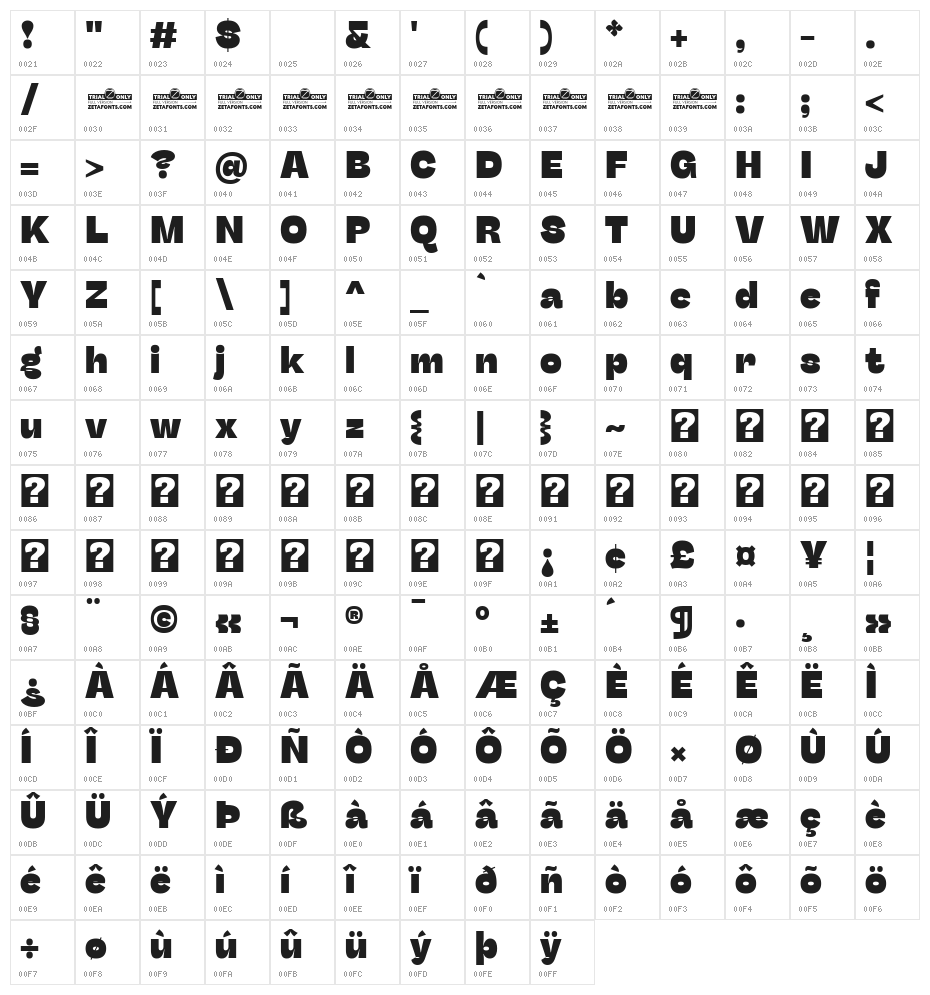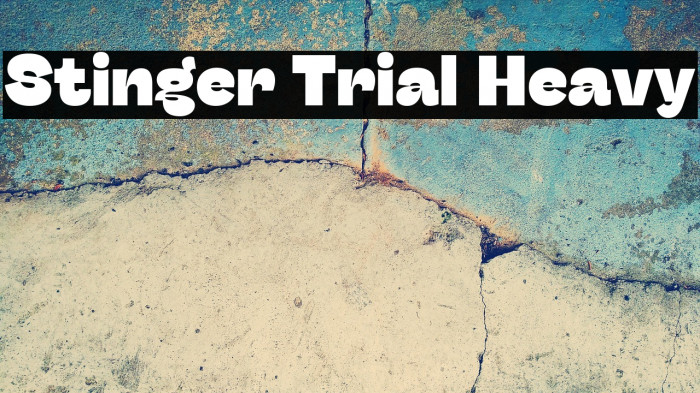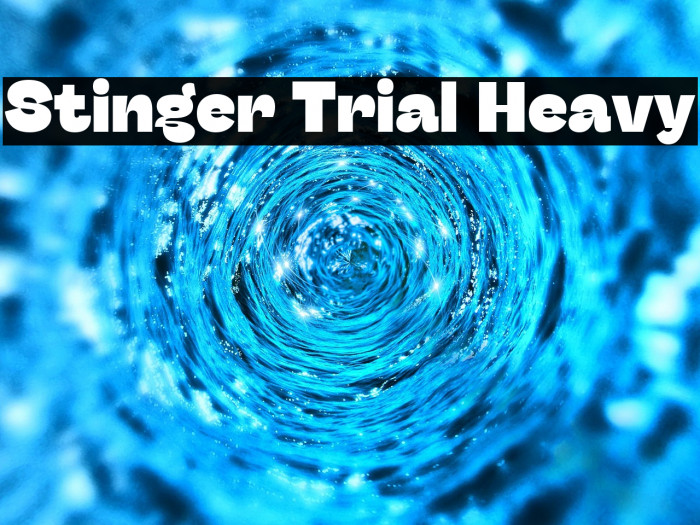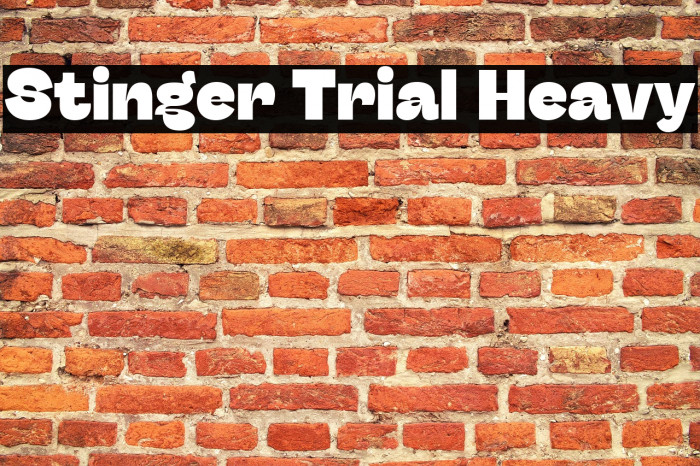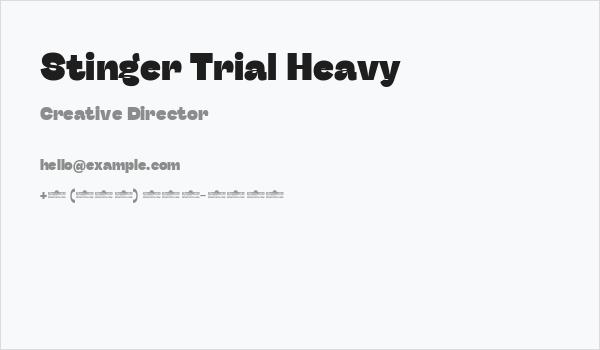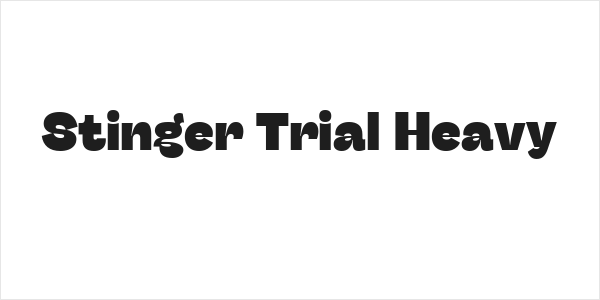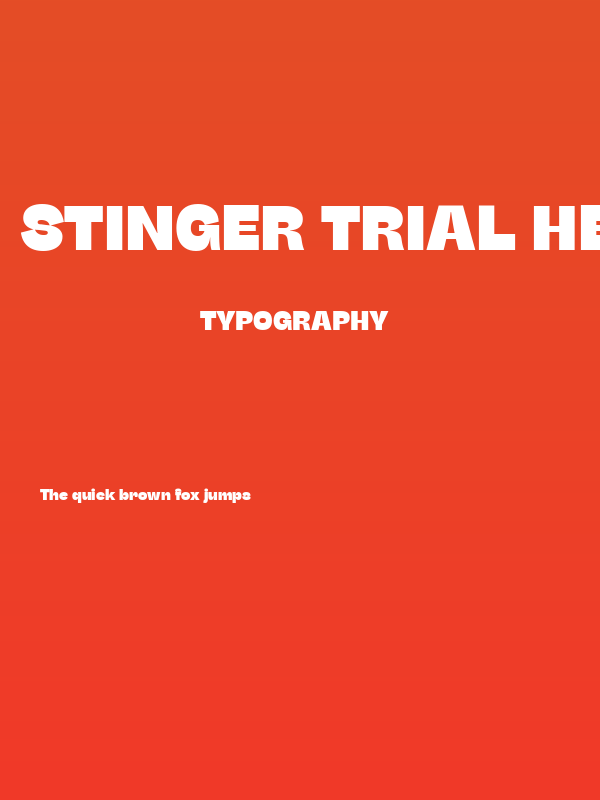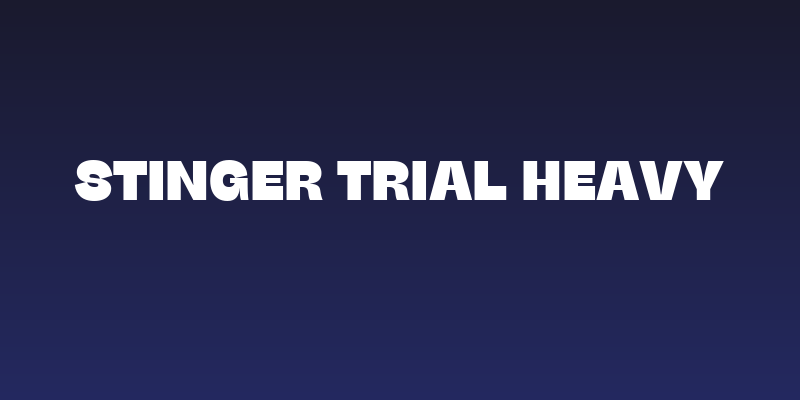
Stinger Trial Heavy Font
Stinger Trial Heavy Description
This typeface exhibits a bold and impactful presence, characterized by thick, uniform strokes that convey strength and confidence. The uppercase and lowercase letters maintain a consistent weight, offering a cohesive and robust appearance. The font features a geometric structure with rounded edges, providing a modern yet approachable feel. Its boldness makes it ideal for attention-grabbing headlines and statements. The numerals and special characters are designed with the same boldness, ensuring uniformity across all text elements.